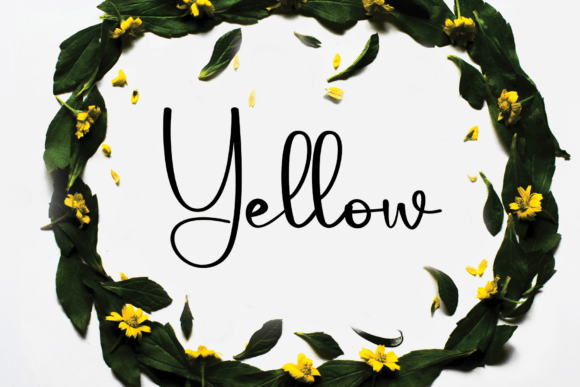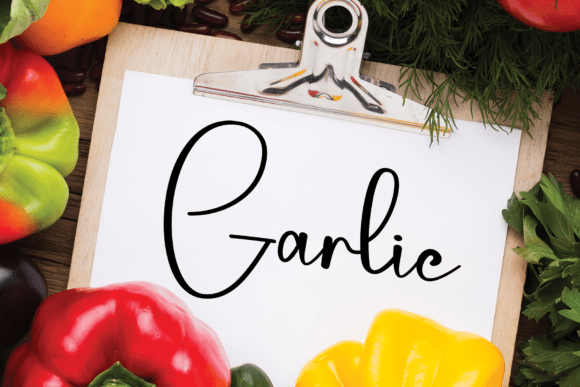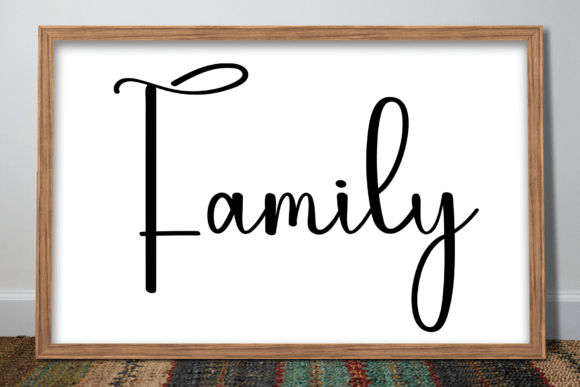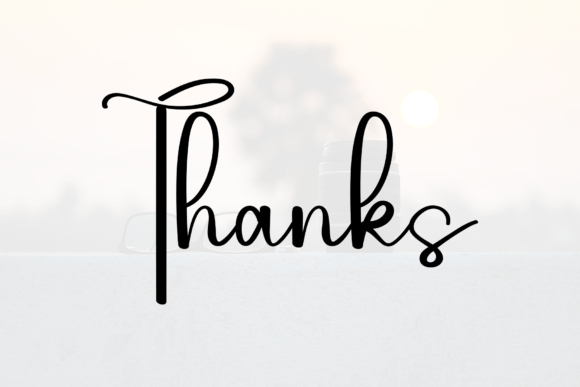
The Sweet Charm of Bunnythink Font: A Designer’s Delight
I’ll never forget the time I was working on a whimsical craft project for a client who wanted a custom design that screamed “cozy charm.” I spent hours scouring font libraries, but nothing seemed quite right – until I stumbled upon Bunnythink Font. This sweet and beautiful handwritten font has since become a staple in my design toolkit, and I’m excited to share its magic with you! ✨
An Honest Review of Bunnythink Font
So, what makes Bunnythink Font so special? Let’s dive into the good stuff and a few quirks I’ve discovered.
- ✨ Unique Character Dance: The way characters dance along the baseline adds a playful touch to any design.
- ✅ Cozy Accent: Bunnythink Font brings a cozy accent to projects, making them feel more approachable and friendly.
- 💫 Versatility: This font works beautifully for a range of projects, from crafting and scrapbooking to branding and advertising.
- 🤔 Limited Use in Small Sizes: While Bunnythink Font is stunning in larger sizes, it can become a bit tricky to read in smaller sizes.
- ⚠️ Occasional Kerning Issues: As with any font, there might be some kerning issues, especially when using certain character combinations.
- Experiment with OpenType features like ligatures and stylistic alternates to add more flair to your design.
The Designer Inspiration Behind Bunnythink Font
While the true story behind Bunnythink Font’s creation remains a mystery, it’s easy to imagine a designer with a passion for whimsy and playfulness crafting this beautiful font. Perhaps they wanted to create a typeface that would bring a smile to people’s faces and add a touch of magic to their designs.
Q: What makes Bunnythink Font unique?
A: Bunnythink Font’s unique character dance and cozy accent make it stand out from other fonts.
Q: Does Bunnythink Font support OpenType features?
A: Yes, Bunnythink Font supports OpenType features, including ligatures and stylistic alternates.